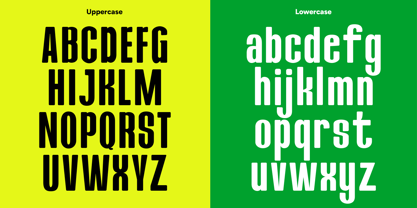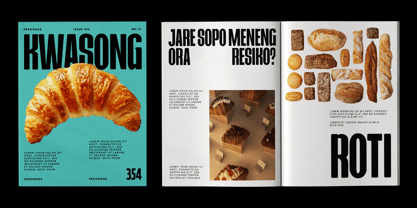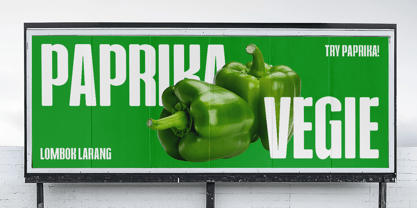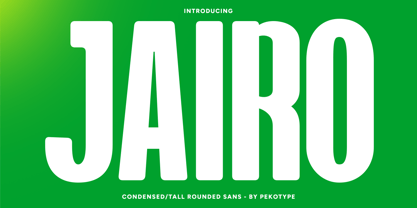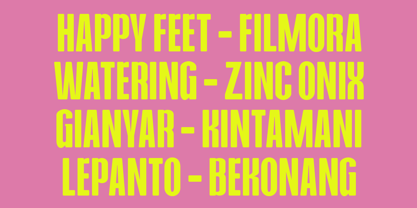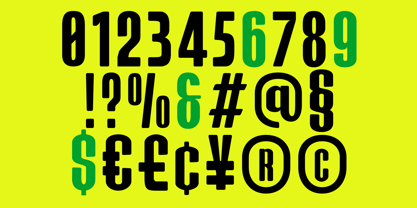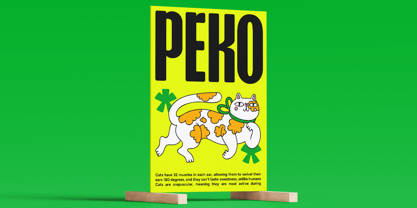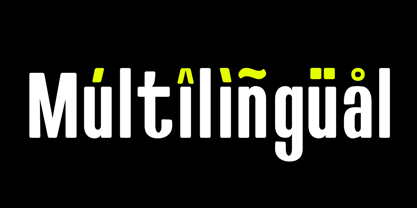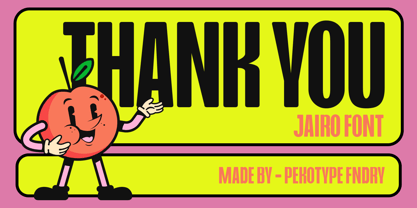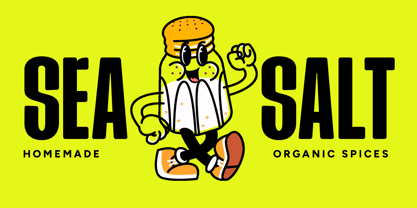
Jairo
A família de fontes Jairo foi desenhada por Galang Bryan e publicada pela Pekotype. Jairo contém 1 estilos. Saiba mais sobre esta família
JAIRO is a tall and bold condensed display font with smooth rounded corners and a clean modern style. Designed to make a strong visual impact, it’s perfect for branding, logos, posters, editorial layouts, promotional materials, and social media content. With its balance of strength and simplicity, JAIRO helps create eye-catching designs that feel professional, modern, and easy to remember.